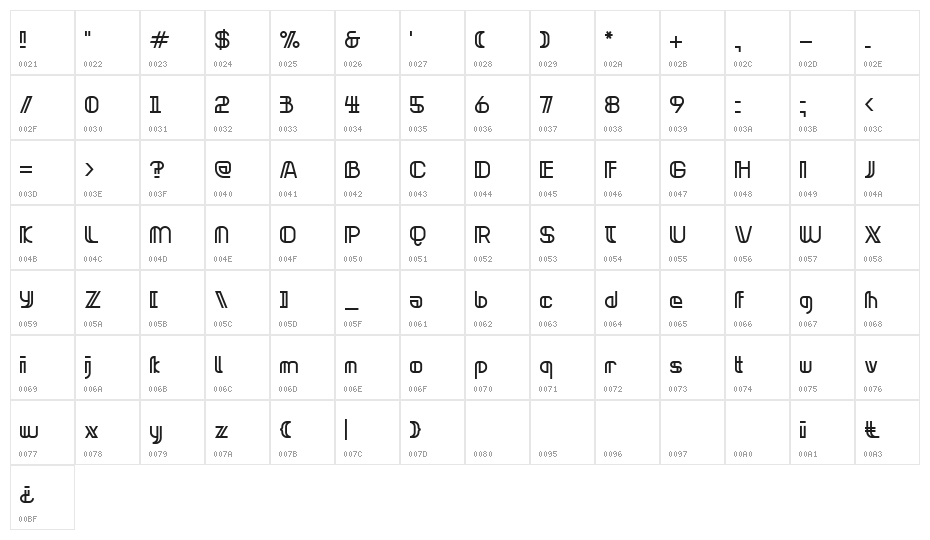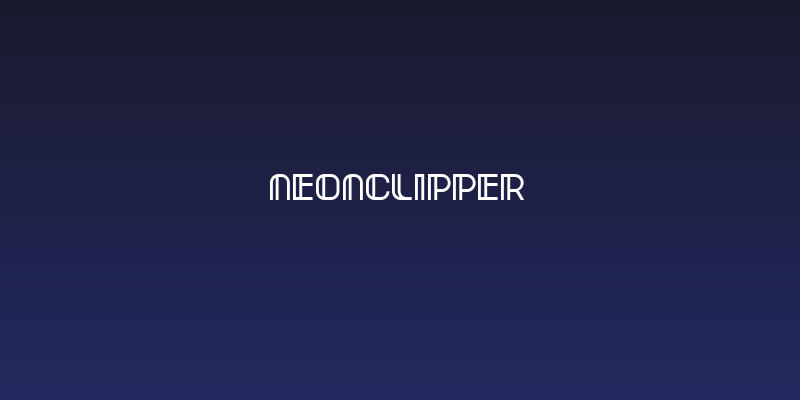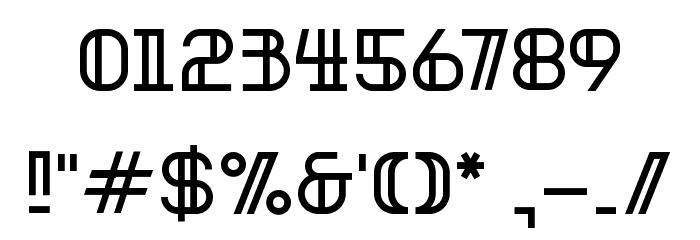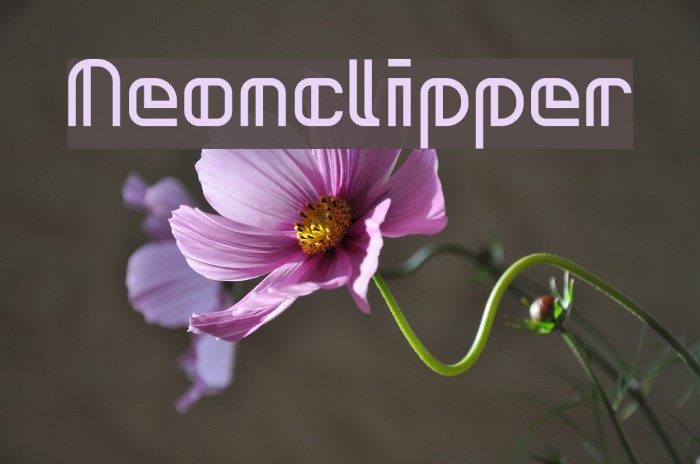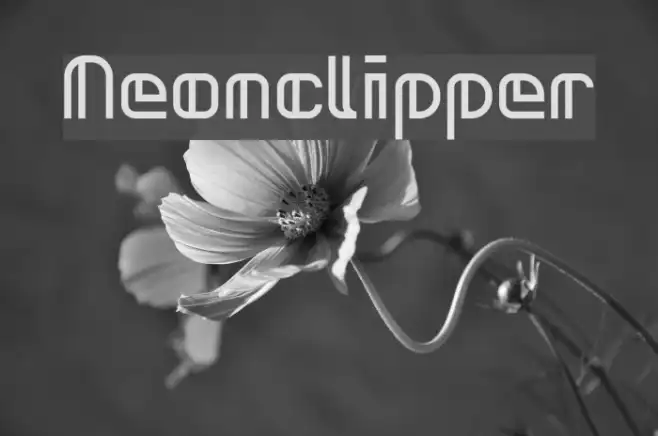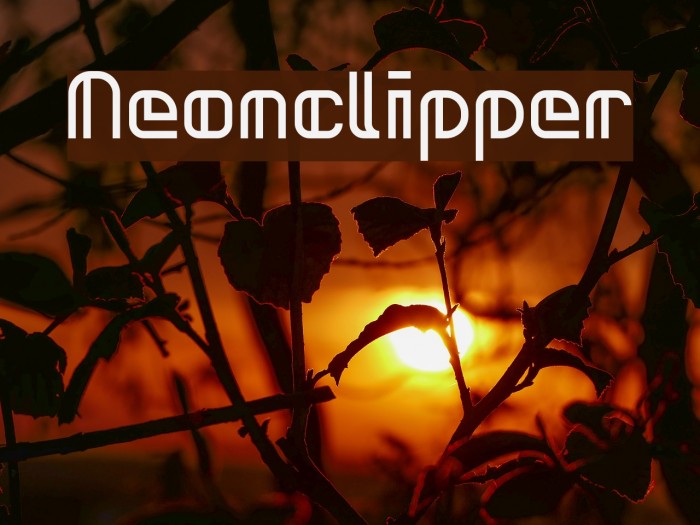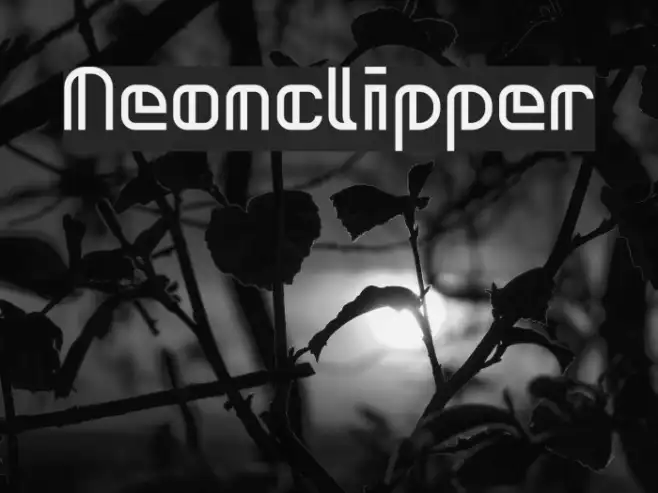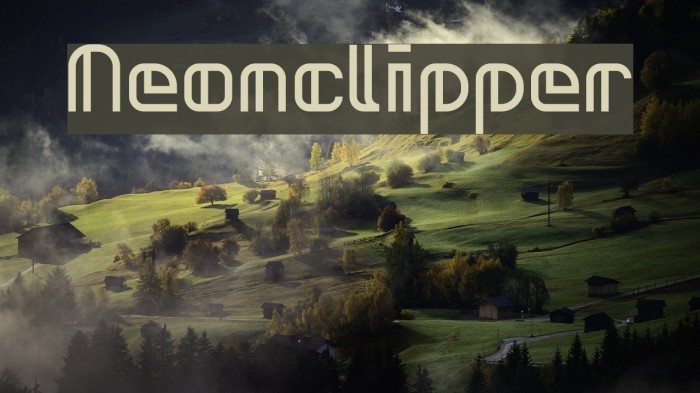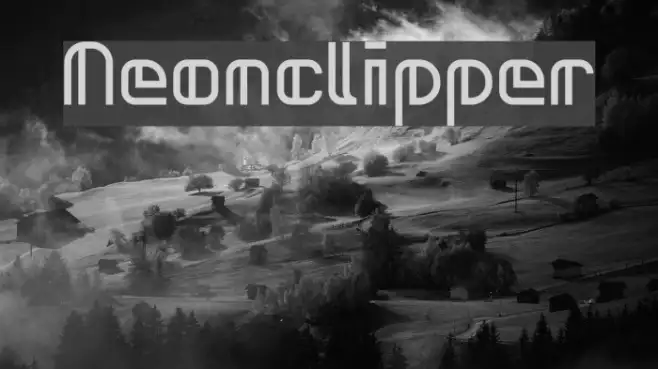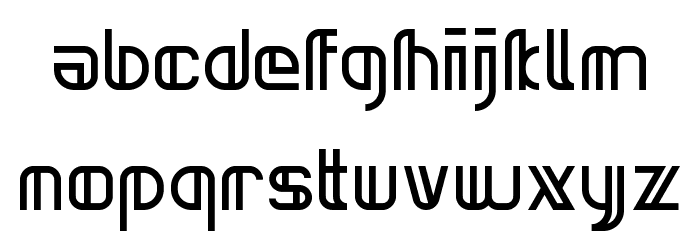
Neonclipper Font
Neonclipper Description
This font features a modern and sleek design with a geometric structure. The characters have a consistent stroke width, giving it a uniform appearance. The uppercase letters are bold and striking, while the lowercase letters maintain a similar style with a slightly softer edge. The numerals are clear and easy to read, matching the overall aesthetic of the alphabet. Special characters are designed to complement the font's clean lines and contemporary feel. This font is ideal for projects that require a futuristic or tech-inspired look.
| Proposed Projects | Ideal for tech branding, futuristic designs, digital interfaces, and modern advertising. |